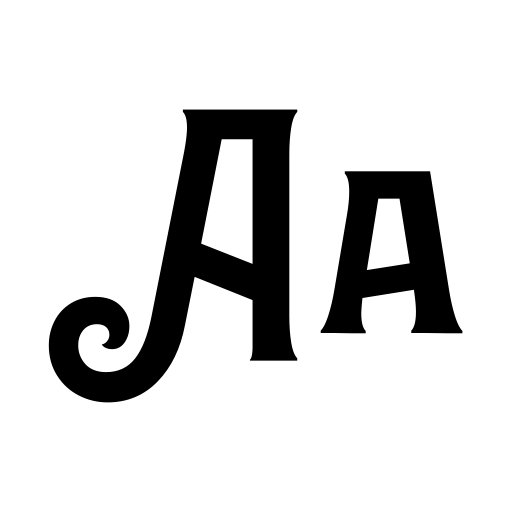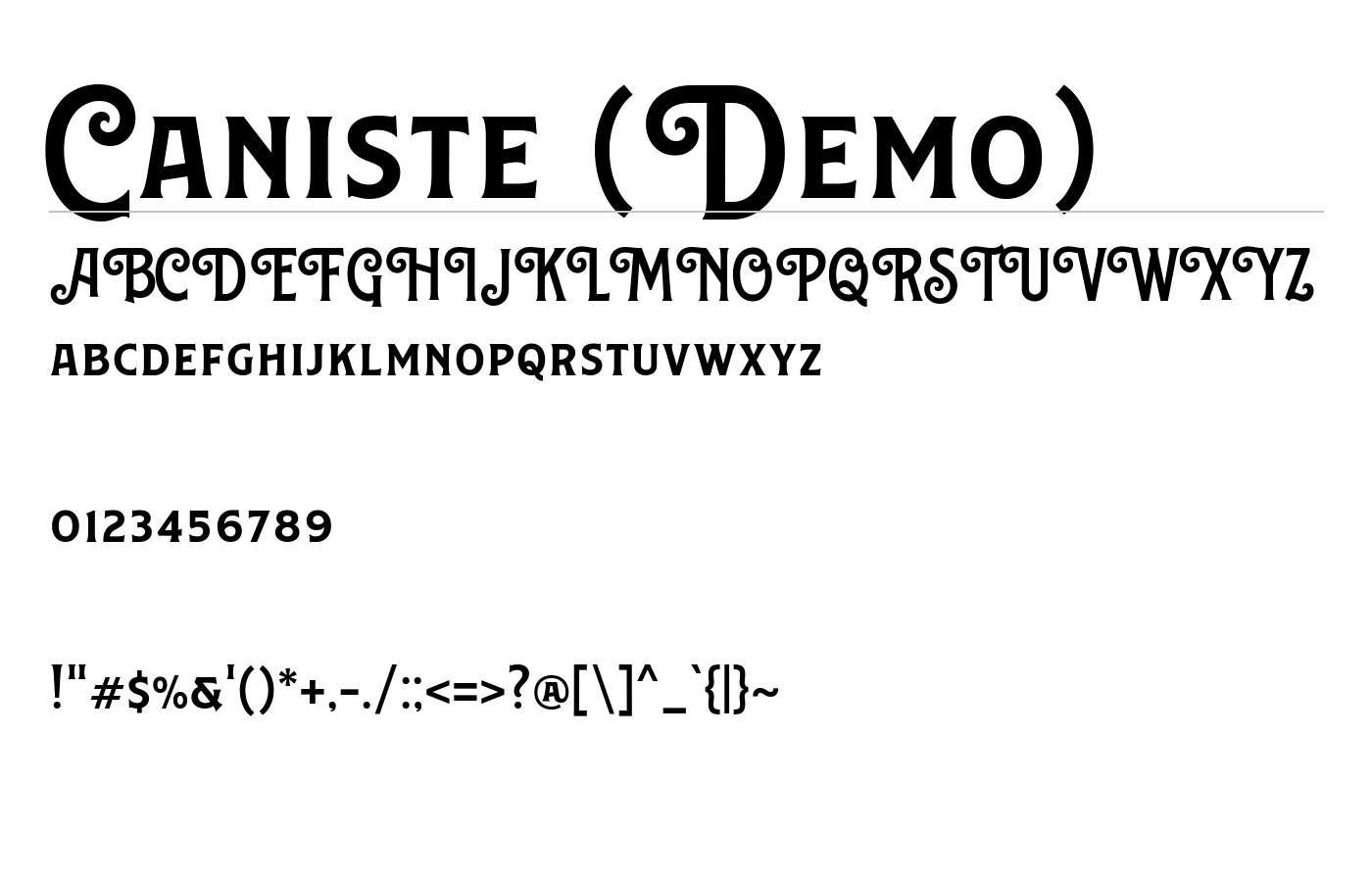
Caniste (Demo) is a decorative serif font featuring thick, bold strokes with unique curled terminals that add a playful yet vintage charm. Its strong presence and intricate detailing make it perfect for eye-catching headlines, logos, and packaging that seek a distinctive, classic feel with a touch of whimsy. This font works well in designs aiming to blend elegance with character, standing out in fashion branding, editorial covers, and creative posters.
Caniste (Demo) Font
About Caniste (Demo) Font